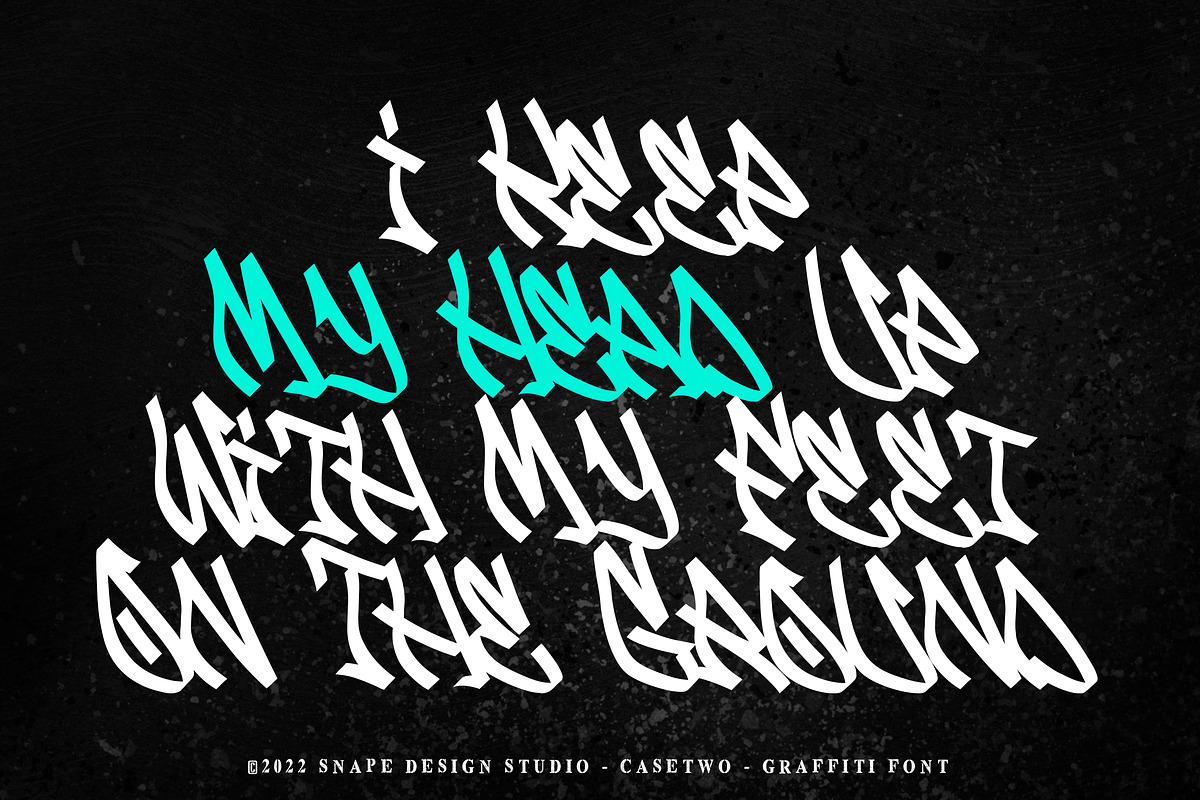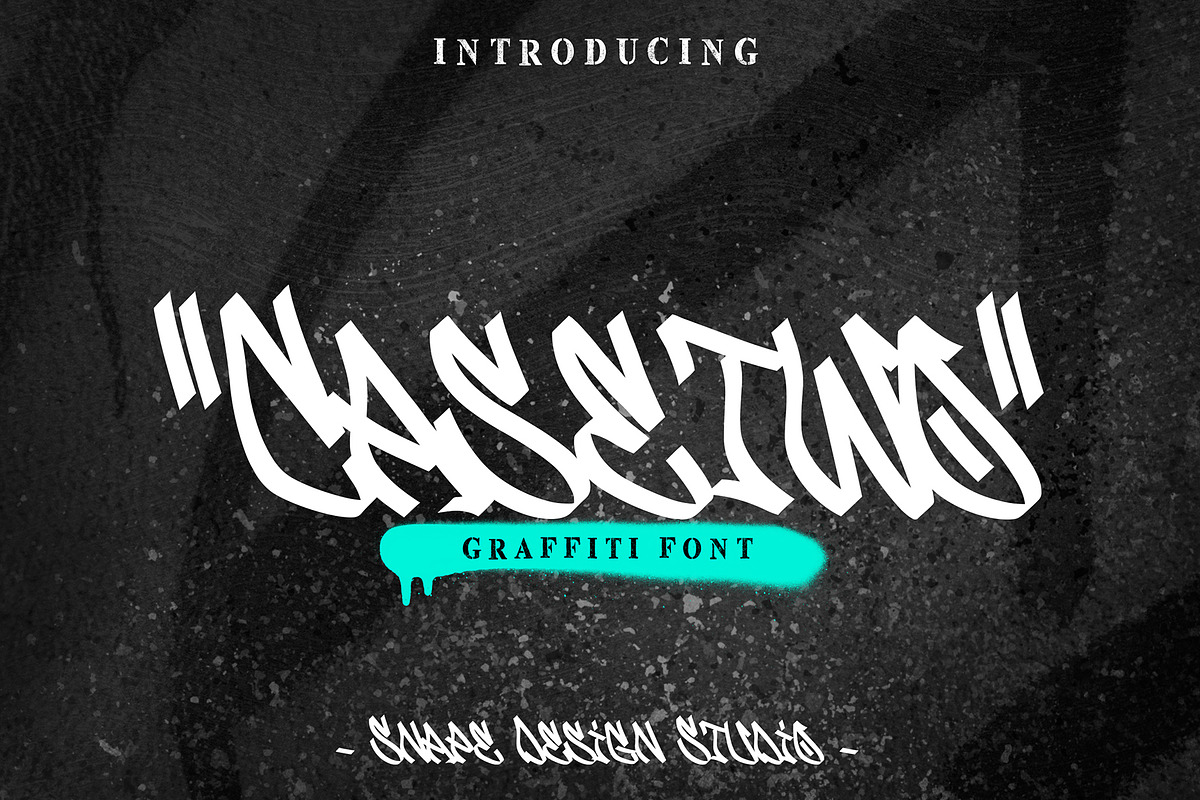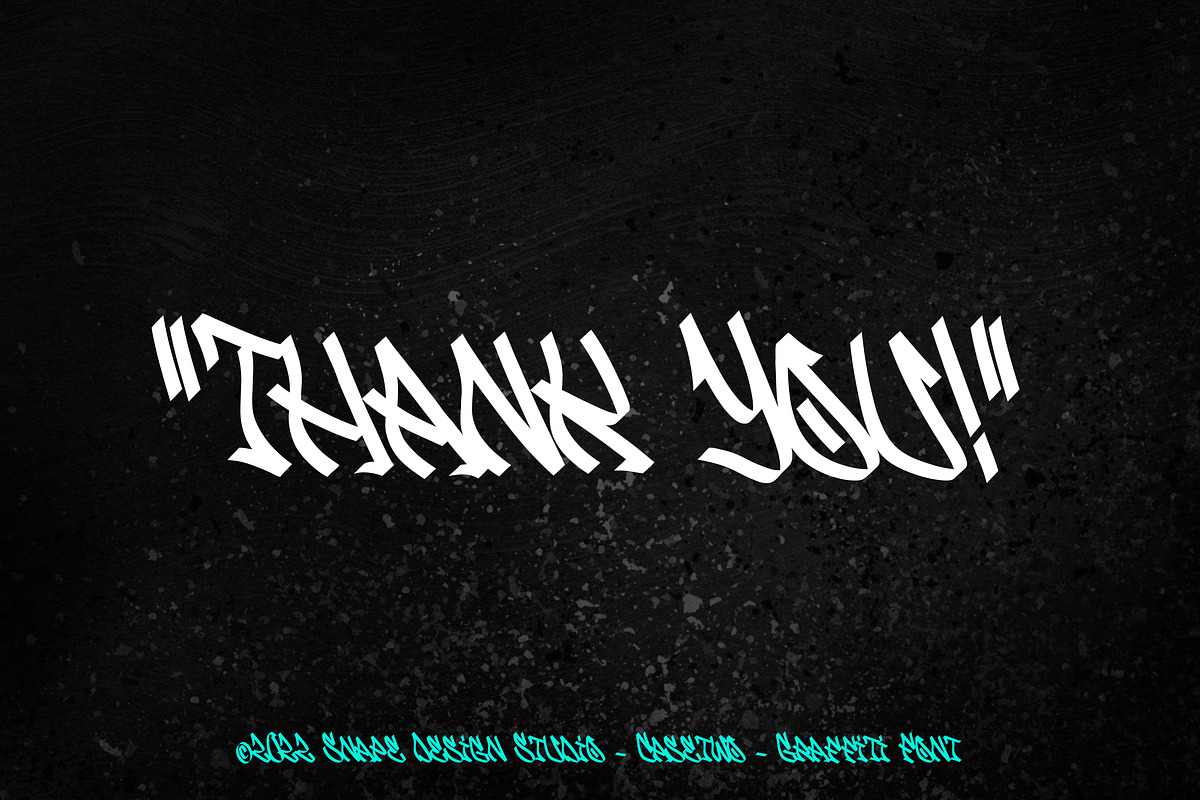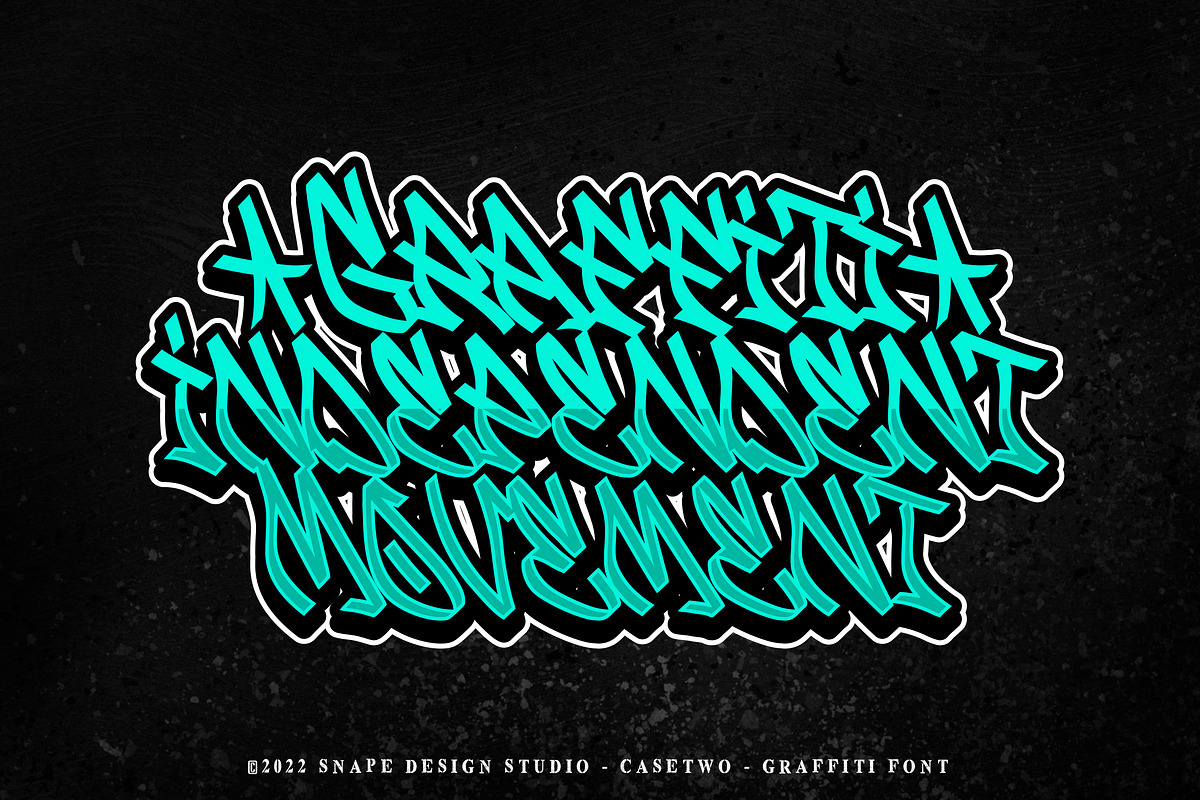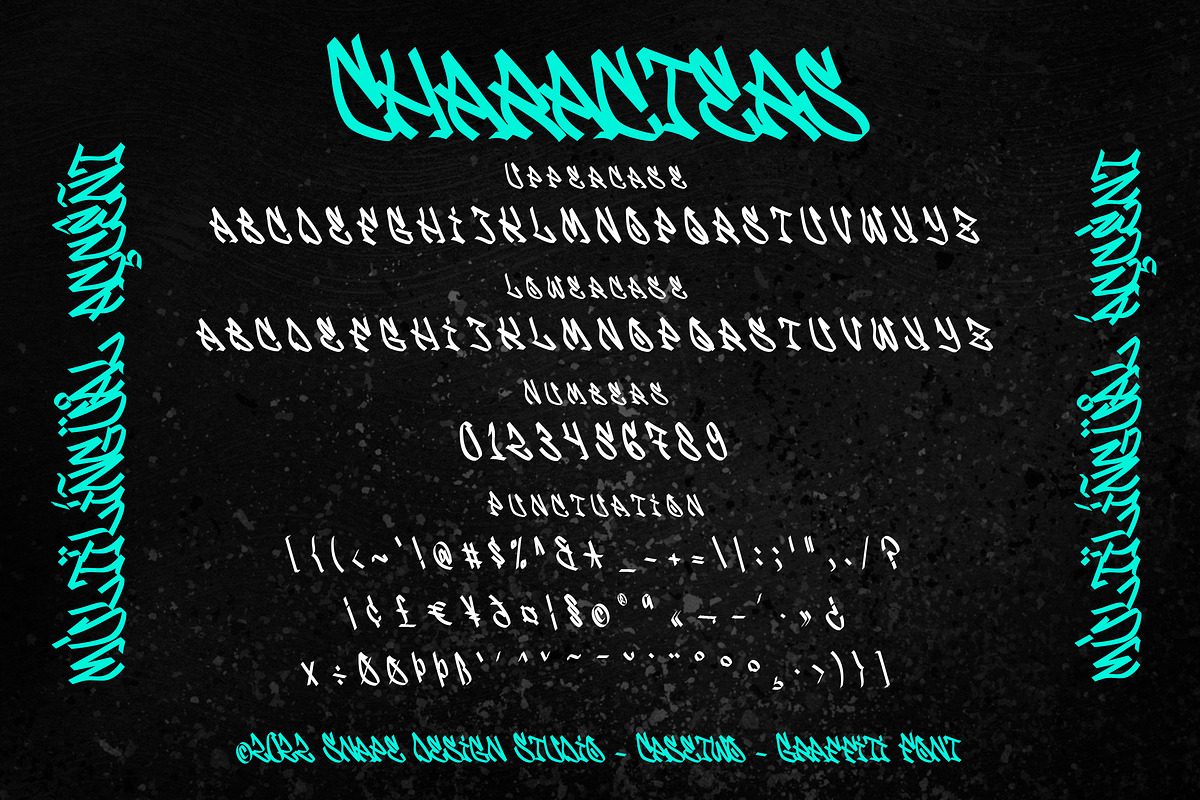
Casetwo - Graffiti Font
CASETWO is a display font inspired by typical street art calligraphy style or graffiti tag, suitable for your design related to it. Also suitable for movie, documenter, film, logo, poster, game, book cover, headlines, title and many more projects. Add this font to your creative ideas and notice how it will make them stand out!
Uppercase Lowercase Number Punctuation Multilingual